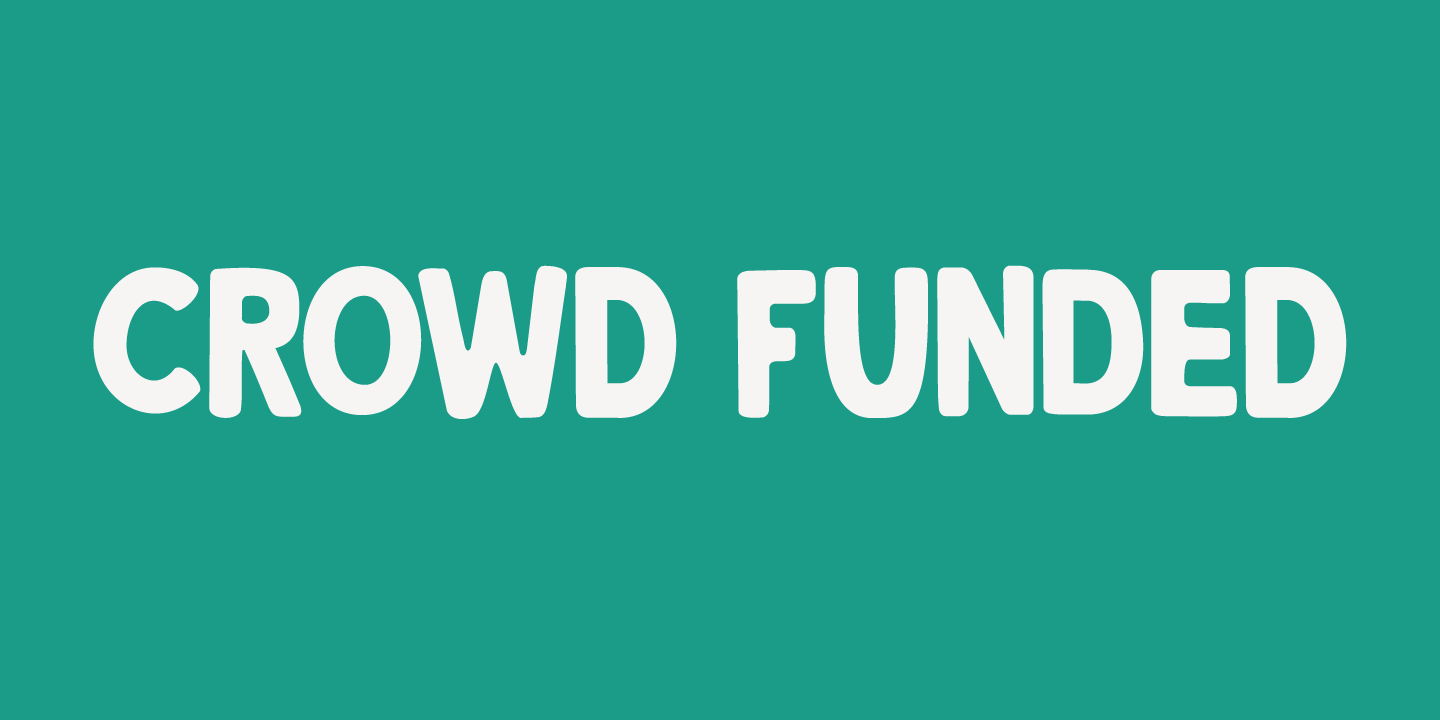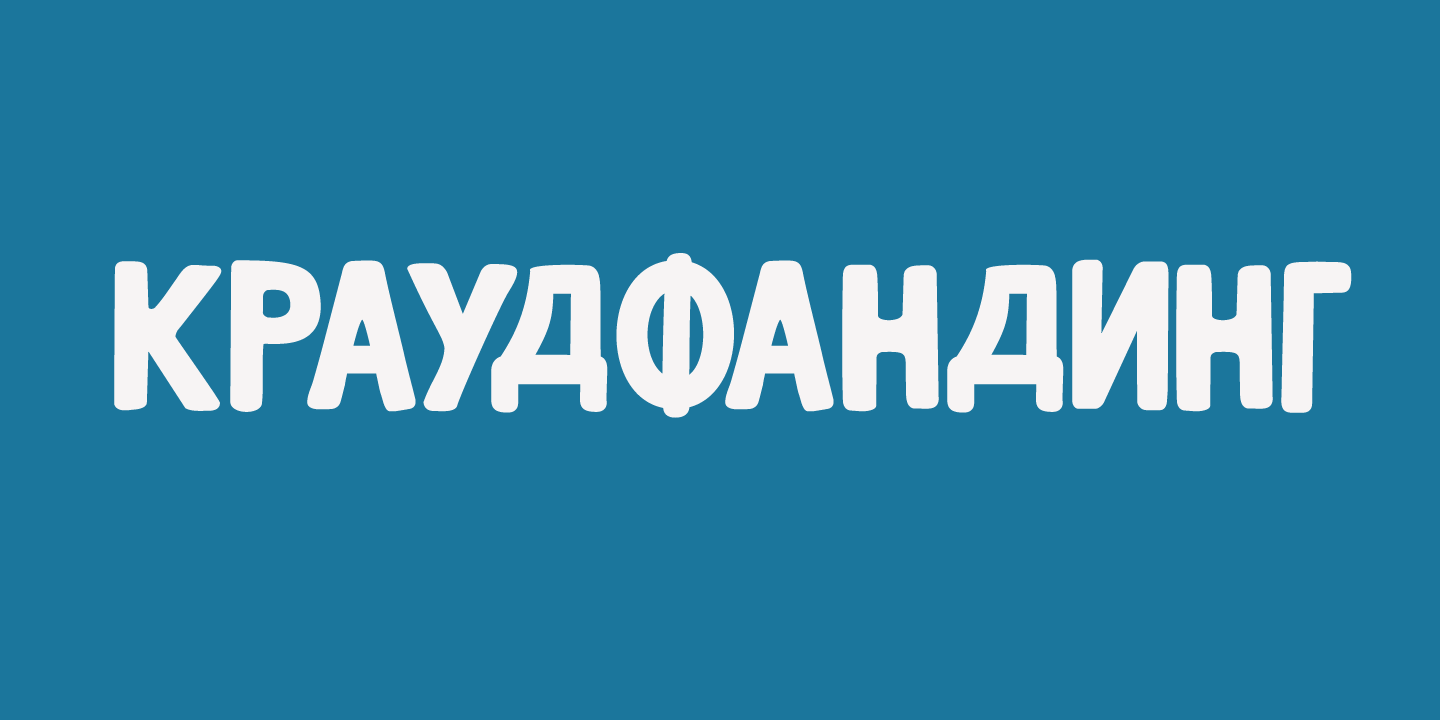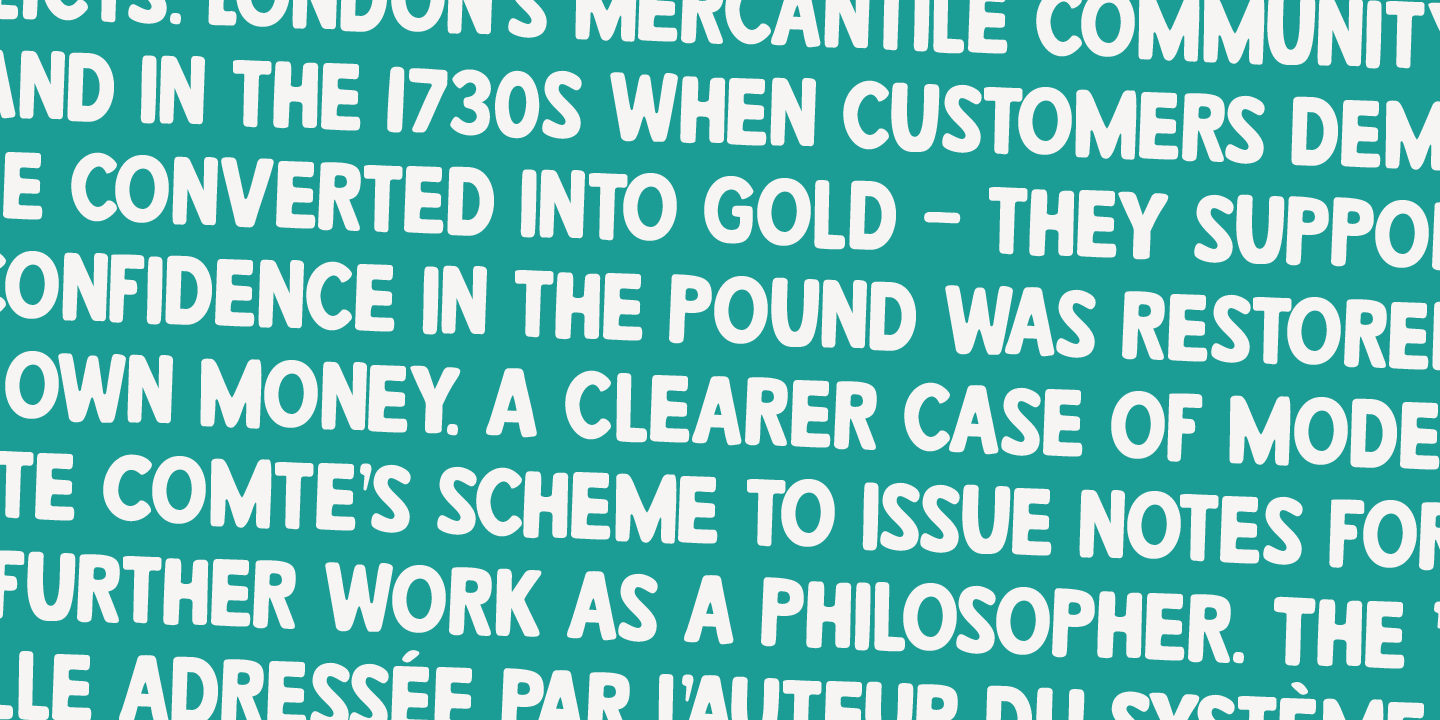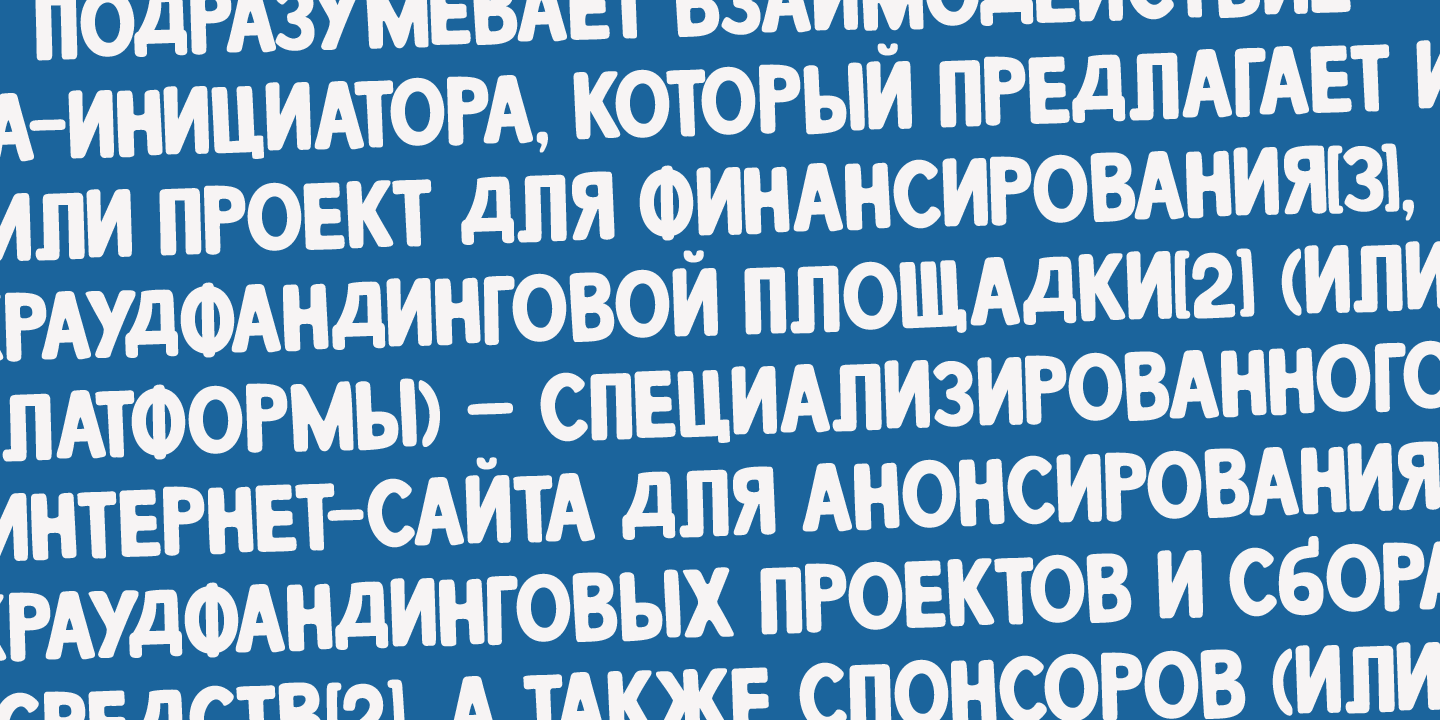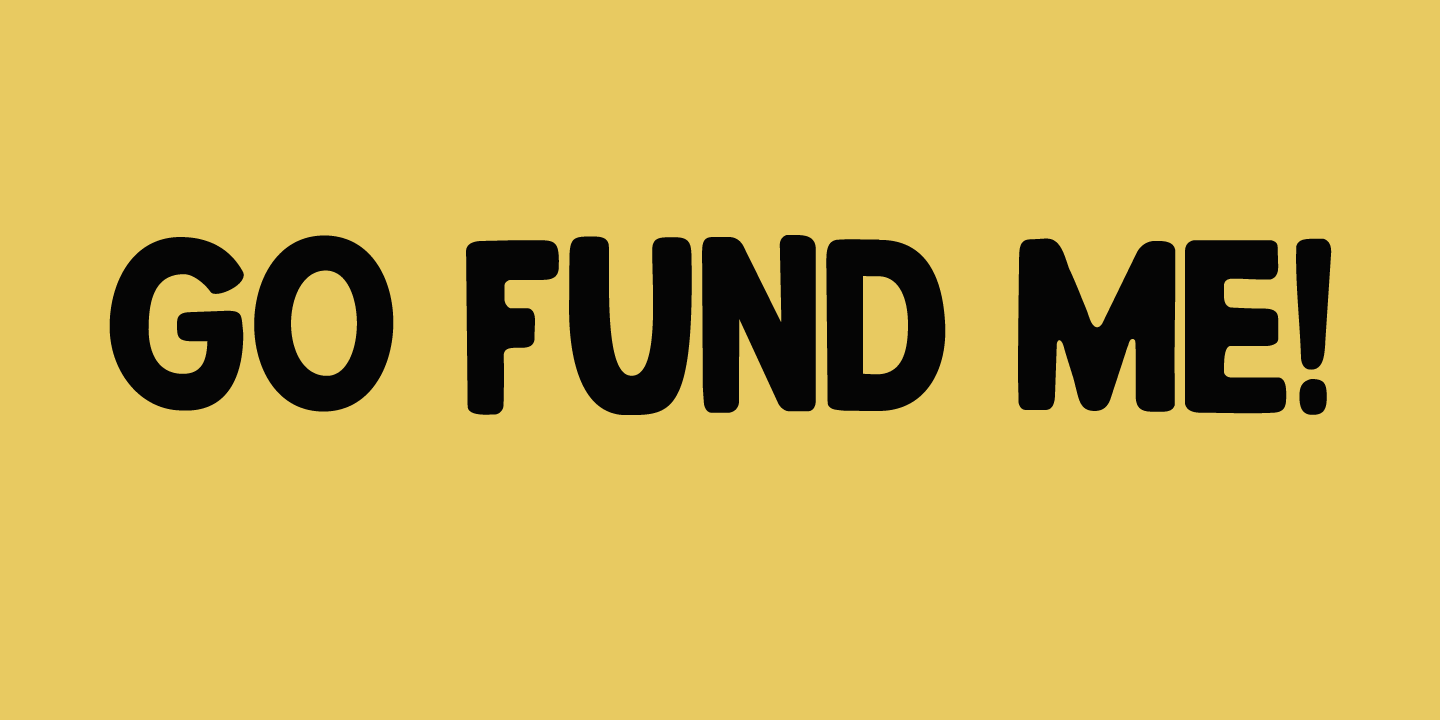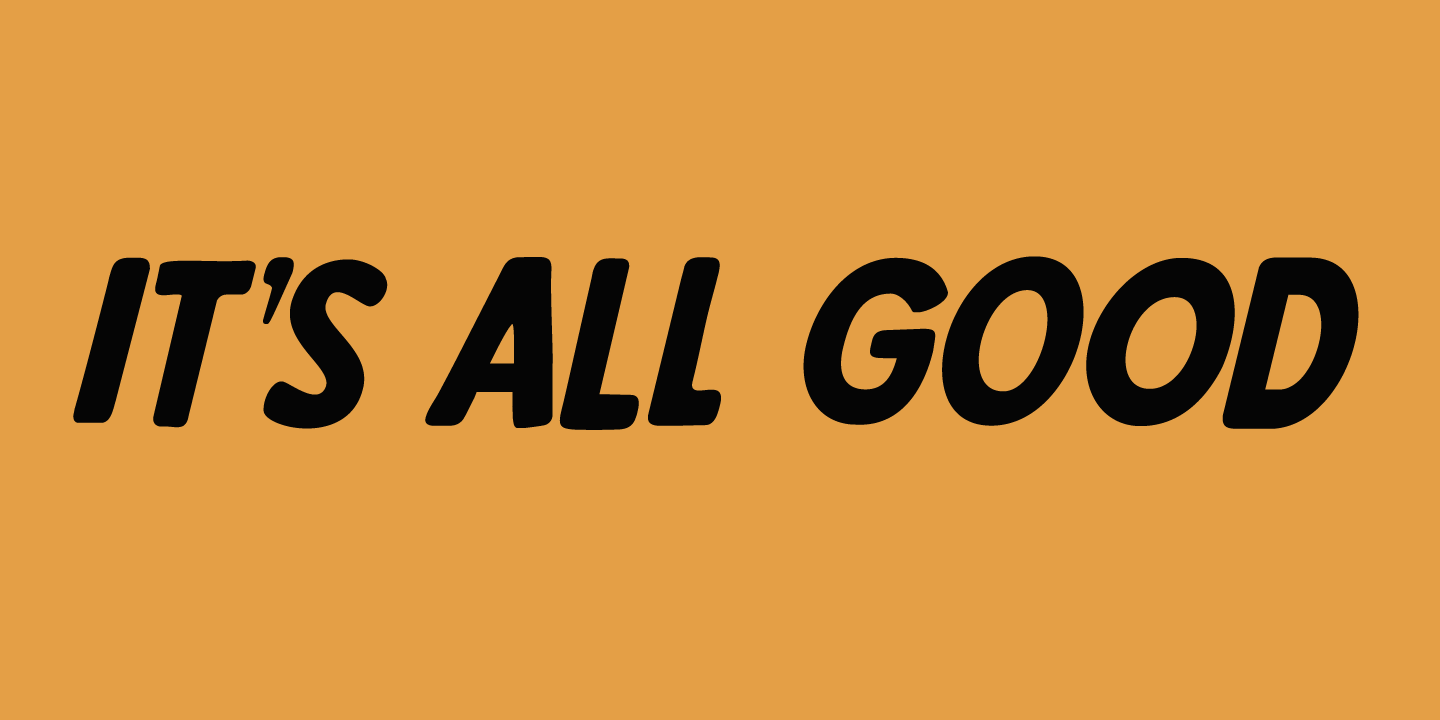
Crowd Funded
Crowd Funded fonts wasn't really crowd funded? In fact, all of the funding came from me, as I had to buy paper and a new pen to get this font going!
Crowd Funded is an all caps display font, which I based on a recent font of mine called Longreach. Crowd Funded is narrower and rounder than Longreach and, in a way, more delicate. It comes with a generous amount of diacritics and basic Cyrillic as well!
Crowd Funded by Hanoded